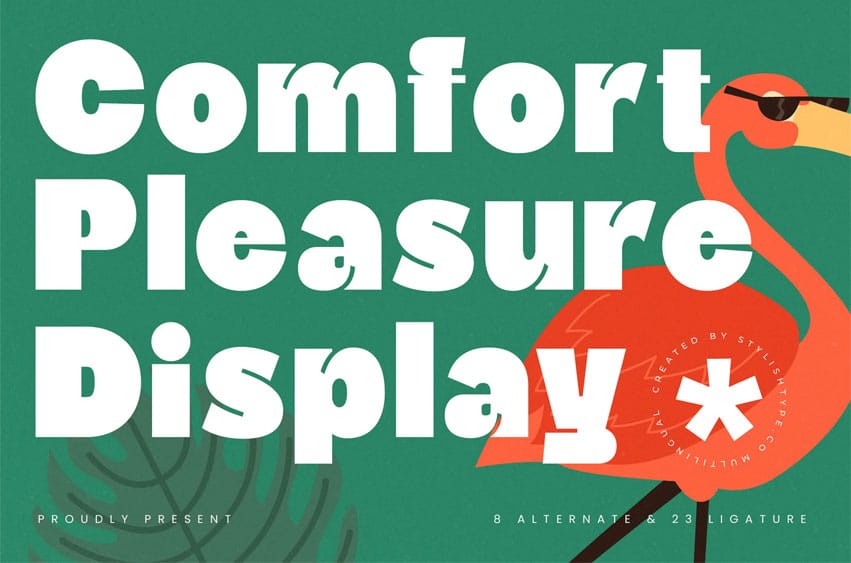
Comfort Pleasure Font is suitable to complement your digital and printed creative products.
This font is perfect for posters, social media posts, branding, personal projects, etc.